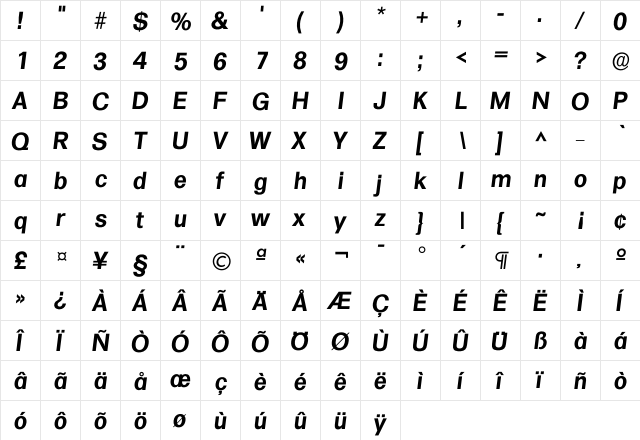
Iformula DemiBold
Design Context for Iformula Typeface
Iformula offers clean, dependable letterforms without strong stylistic allegiance, making it a practical choice for designers who need flexibility. The heavy weight commands attention and anchors typographic hierarchies.
Pro Tip: Use Iformula in both headline and body roles to test its range before committing to a single application.